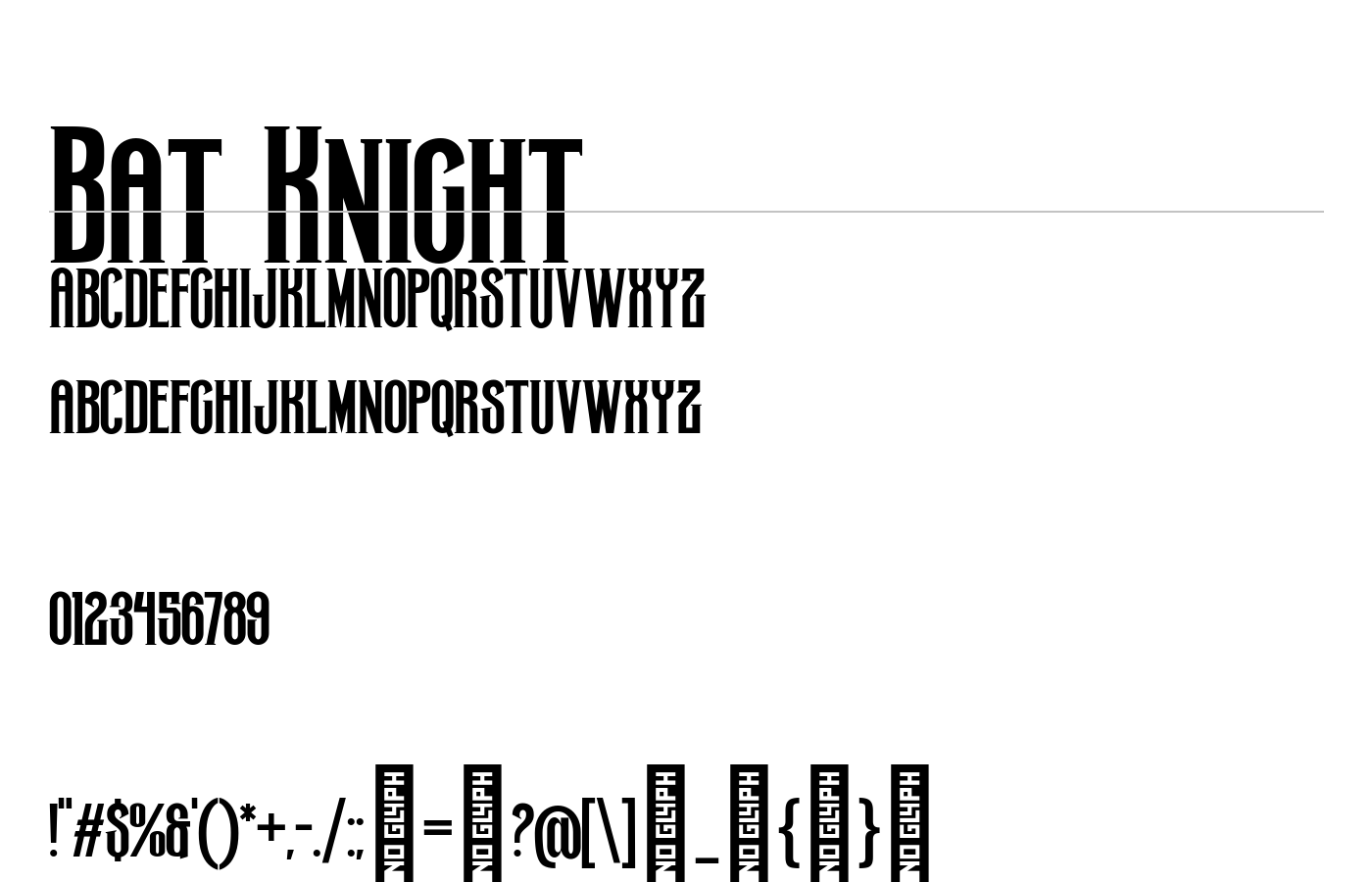
Bat Knight is a narrow, bold sans serif font with a tall, condensed structure that commands attention. Its sharp, geometric letterforms give it a modern, slightly gothic vibe, making it ideal for striking headlines, branding with an edge, and display uses where a strong, dramatic personality is needed. This font works best in designs that require a sleek yet powerful look, such as logos, posters, and fashion branding.
Bat Knight Font
About Bat Knight Font
| Font family | Bat Knight Font |
| Designer | Dwi Putra Yoga |